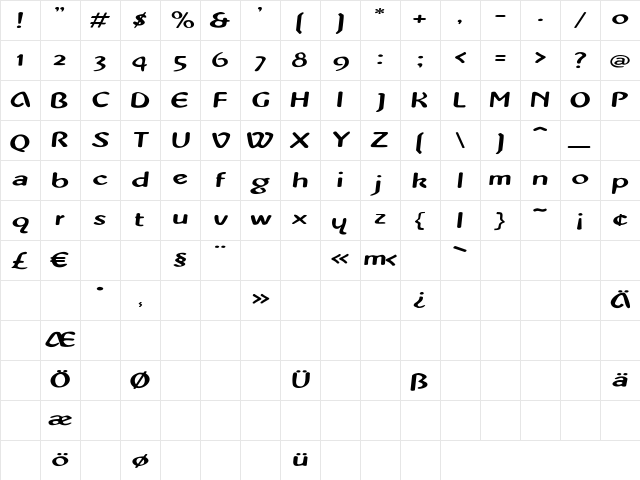
PopUp Regular
Design Context for PopUp
PopUp is a composed and adaptable typeface that performs quietly and consistently across a wide range of design contexts.